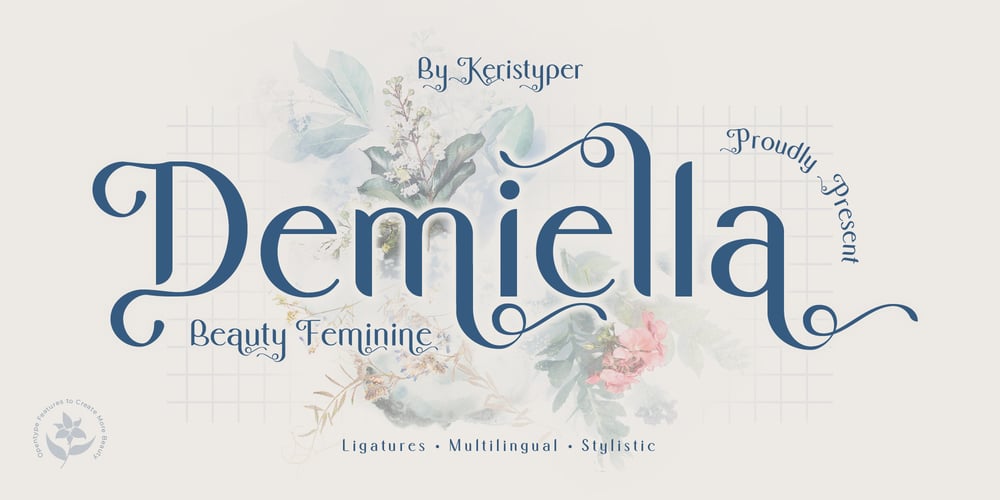
Demiella Font Family was designed by Tezar Tantular and published by Keristyper Studio. Demiella contains 1 styles and family package options. Demiella is an elegant beauty sans serif. Simple letter shapes with playful swash & stylistic, keeping its legibility high. This font is good for logo design, Social media, Movie Titles, Books Titles, short text even long text letters, and good for your secondary text font with sans or serif.Featured: Standard Uppercase & Lowercase Numeral & Punctuation Multilingual : ä ö ü Ä Ö Ü ß ¿ ¡ Alternate & Ligature PUA encoded We recommend programs that support the OpenType feature and the Glyphs panel such as Adobe applications or Corel Draw. so you can use all the variations of the glyphs.Hope you enjoy our fonts!